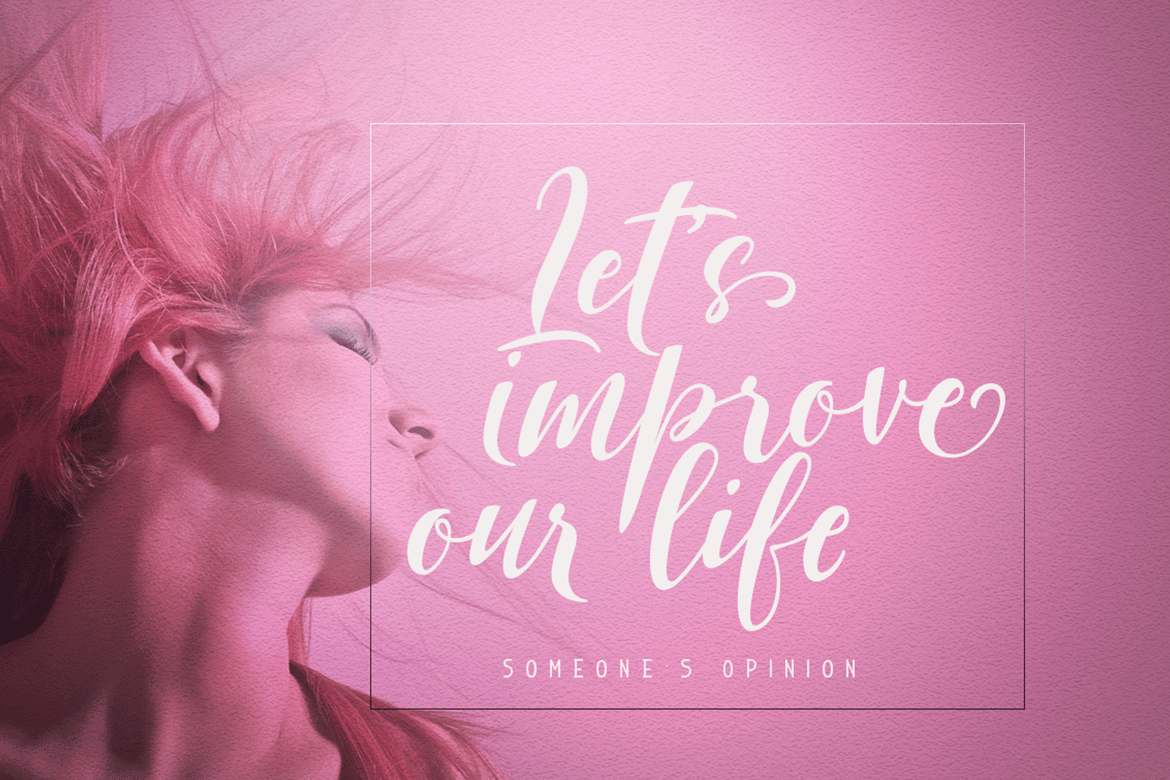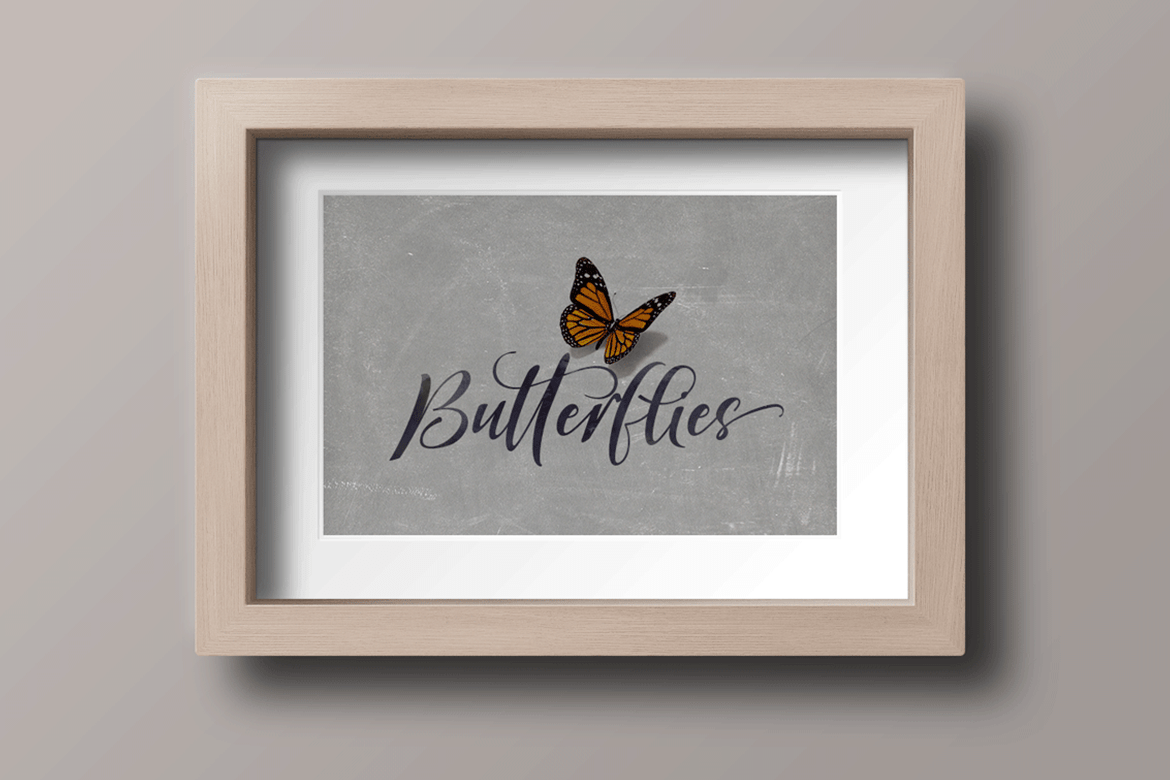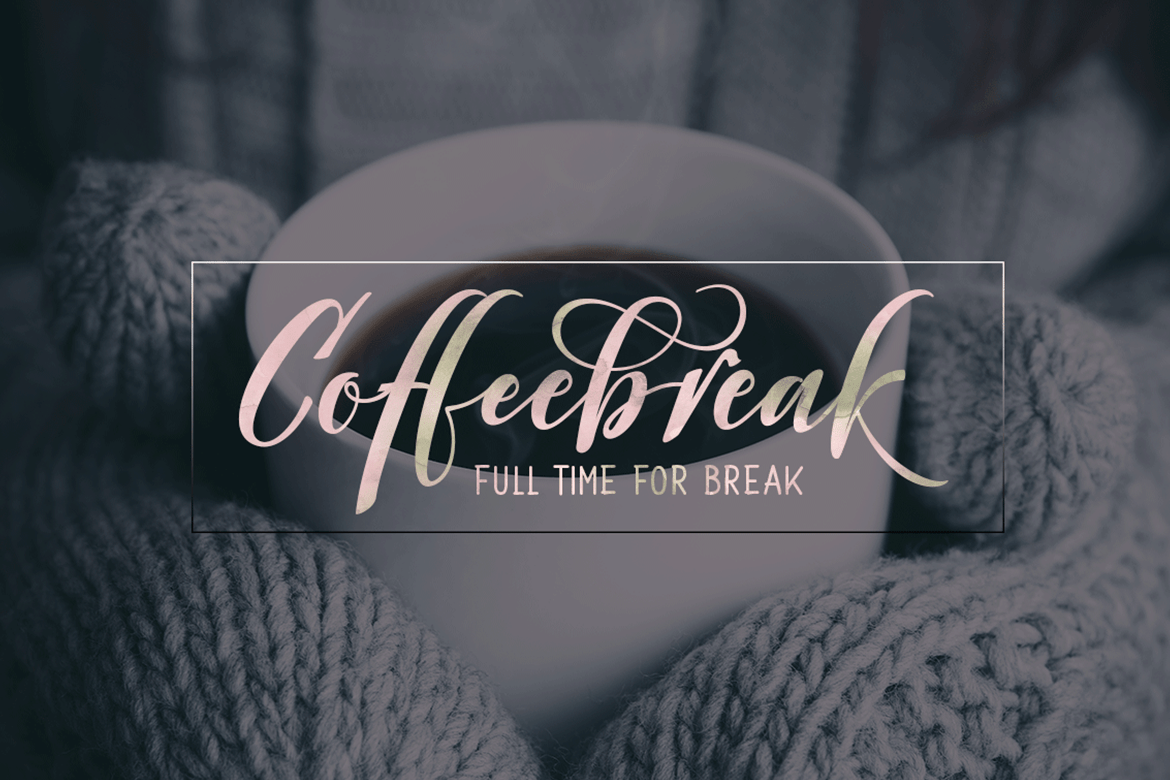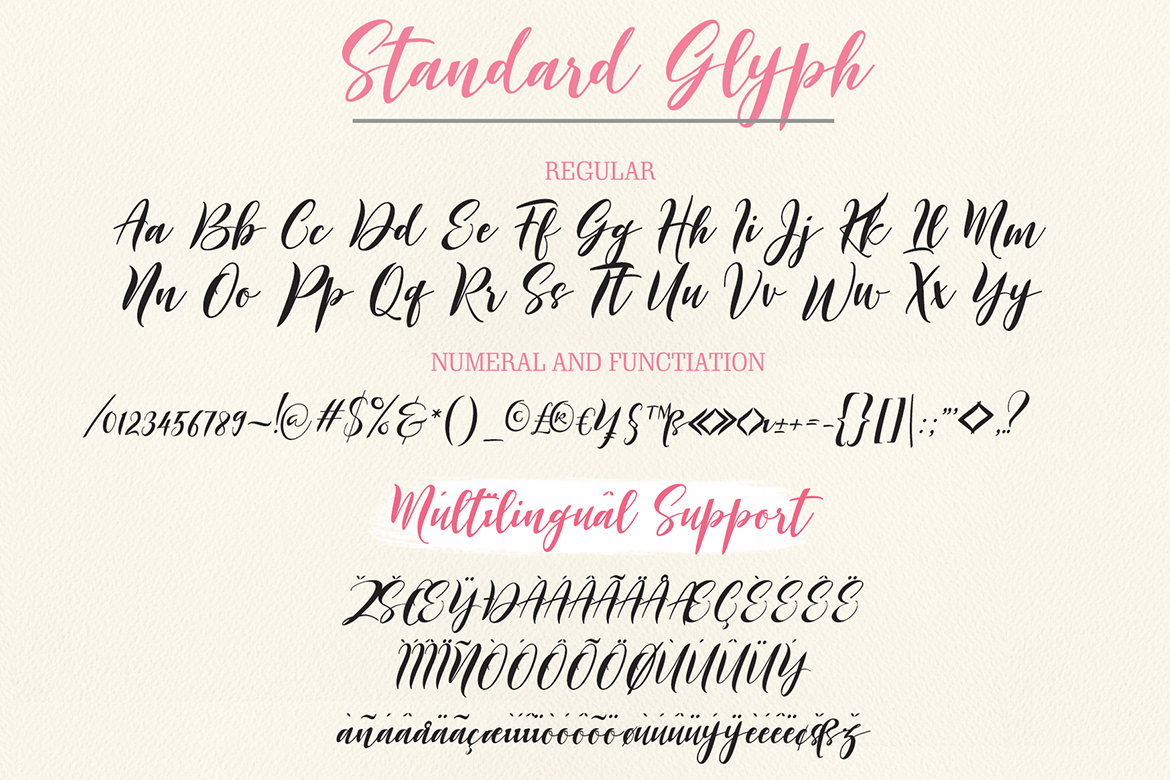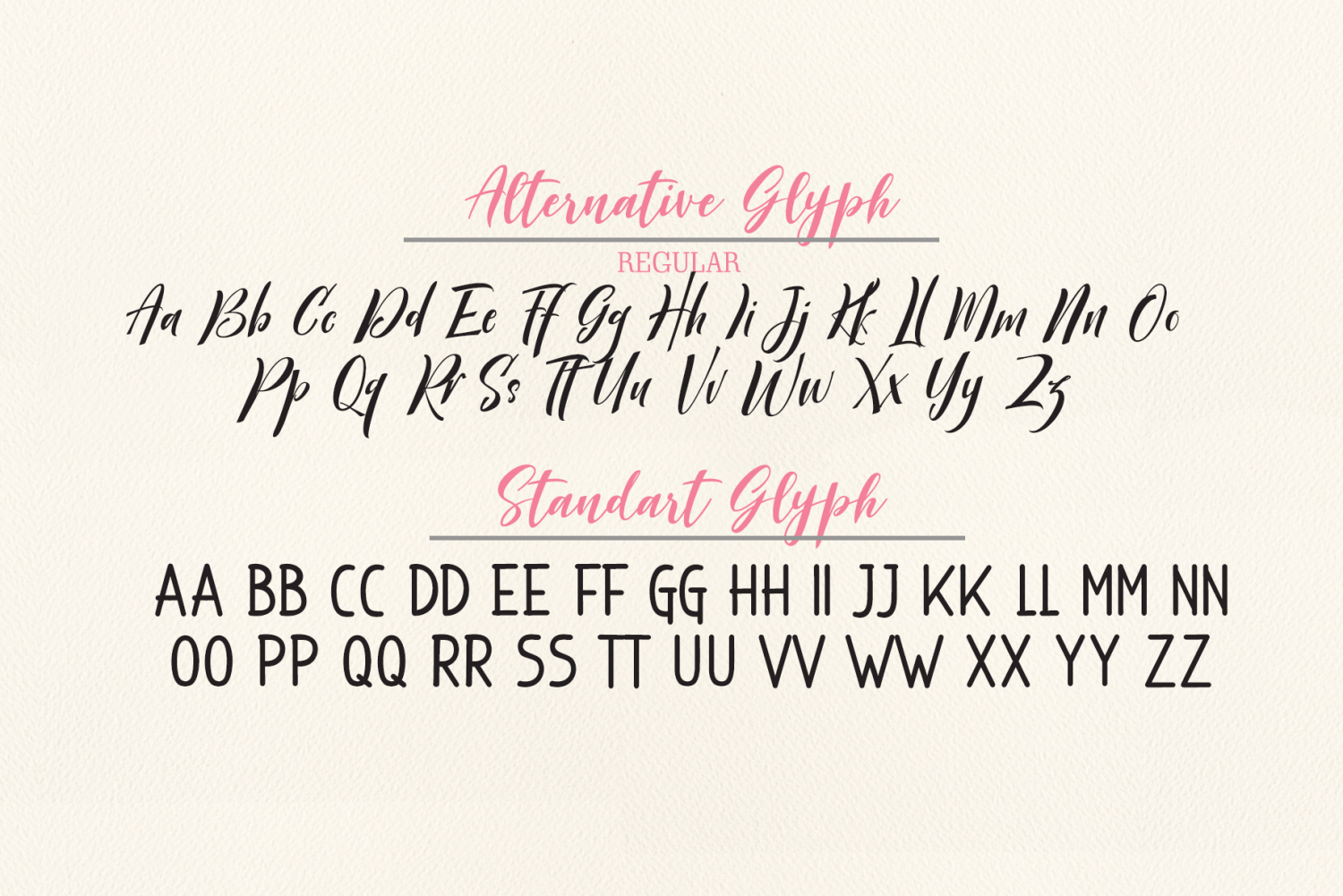
Justtrue
JUSTTRUE are three sets of fonts, it is that the smooth fonts brush that has a different style. This is the perfect choice for personal branding project. Can be used for various purposes.such as headings, logos, wedding invitations, t-shirts, letterhead, label, news, posters, badges etc. To enable the OpenType Stylistic alternates, you need a program that supports OpenType features such as Adobe Illustrator CS, Adobe Indesign and CorelDraw X6-X7.
The Justtrue font family includes 491 glyphs.